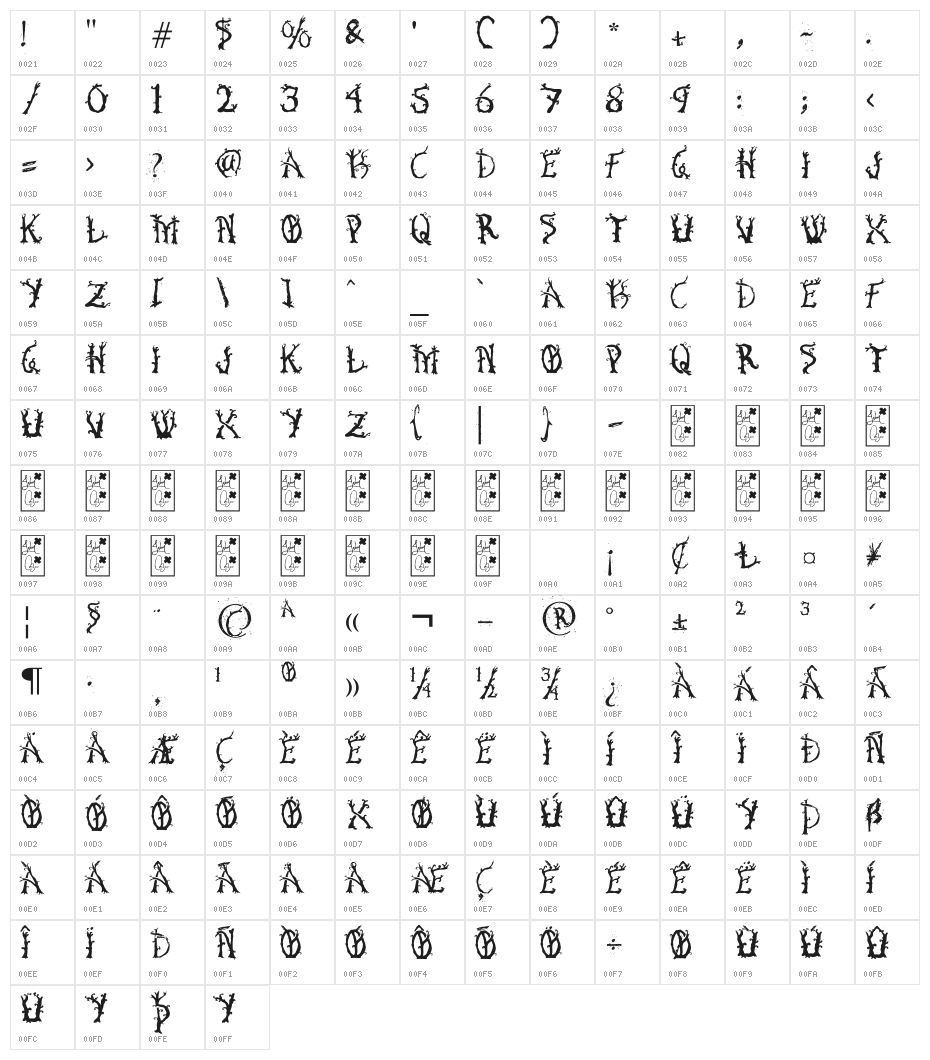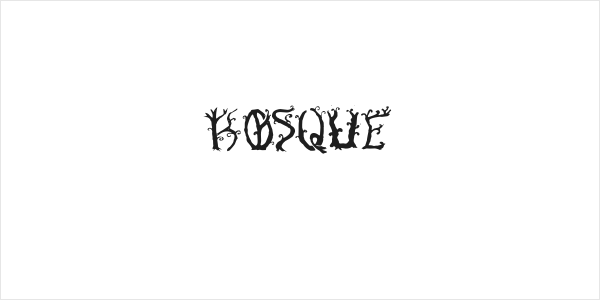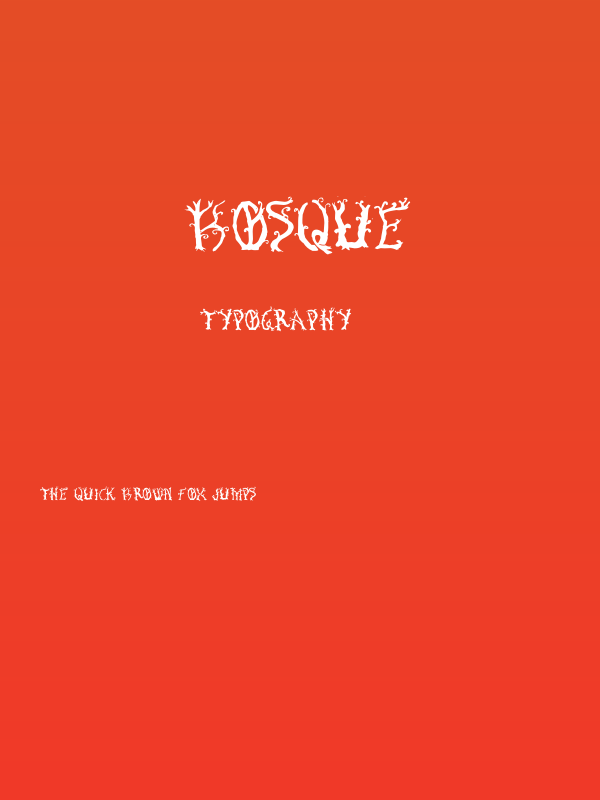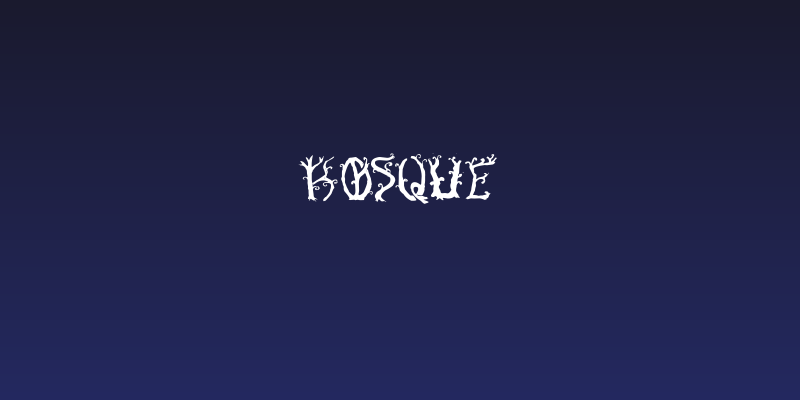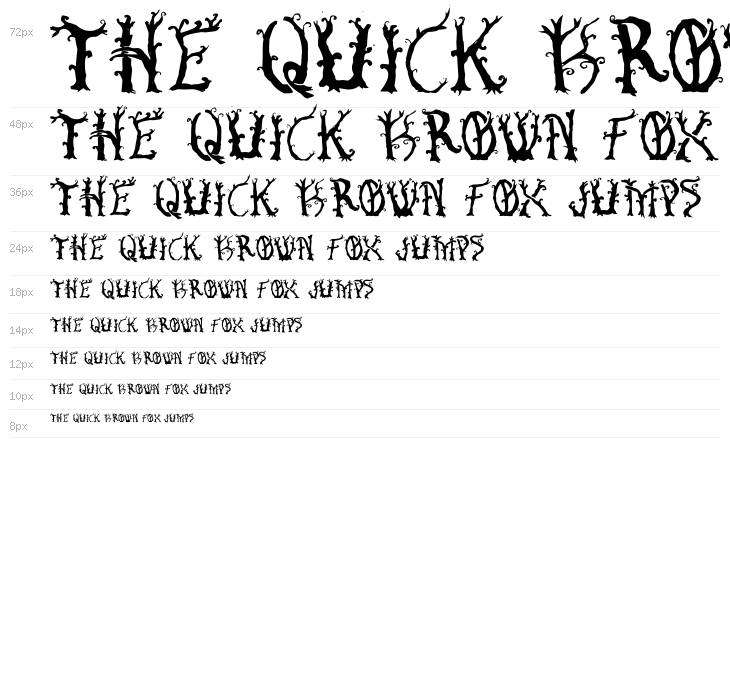
Bosque Font
Bosque Description
This font features an intricate and organic design, reminiscent of twisting vines and branches. Each character is adorned with decorative elements that evoke a sense of nature and wilderness. The letters have a whimsical and slightly chaotic appearance, with varying thicknesses and unexpected curves. This style is highly decorative, making it ideal for projects that require a unique and eye-catching typeface. The font's playful yet mysterious aesthetic can add a touch of fantasy or enchantment to any design.
| Proposed Projects | Perfect for fantasy-themed posters, book covers, or event invitations that require a touch of nature or whimsy. |